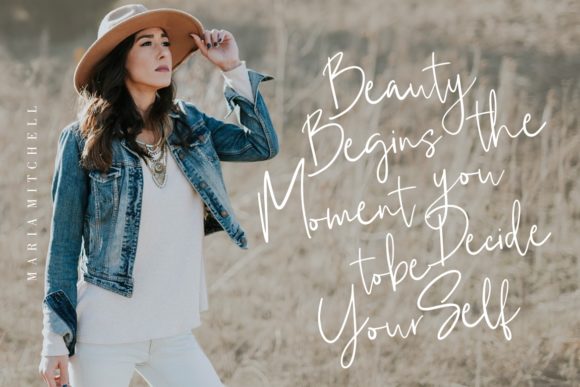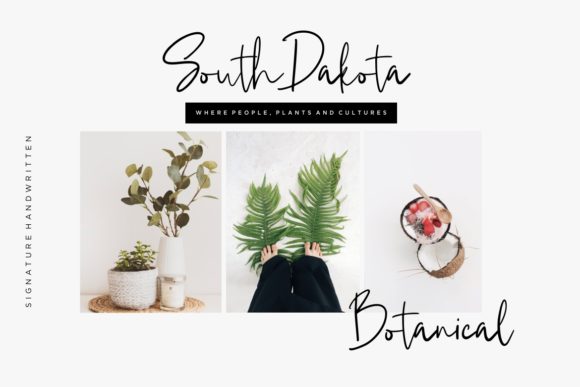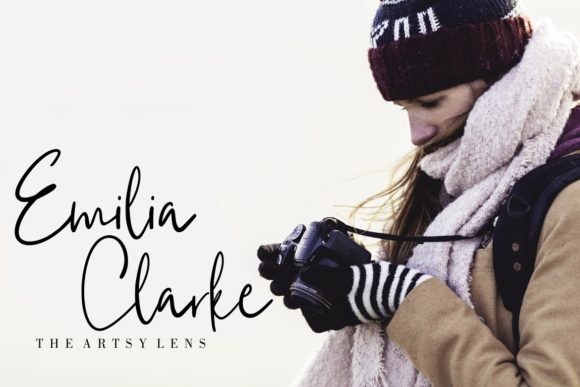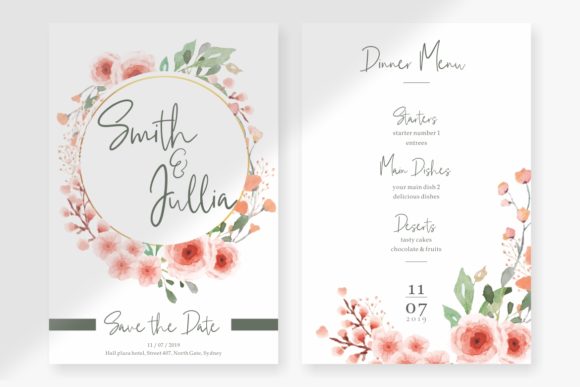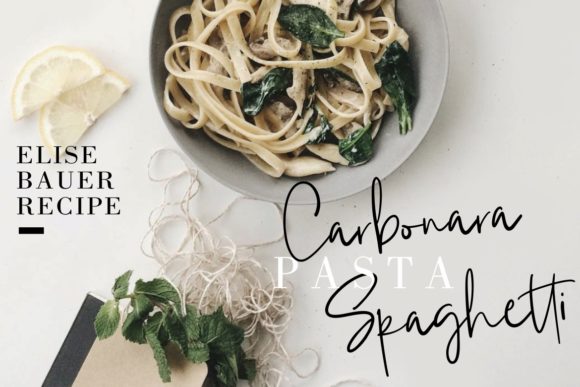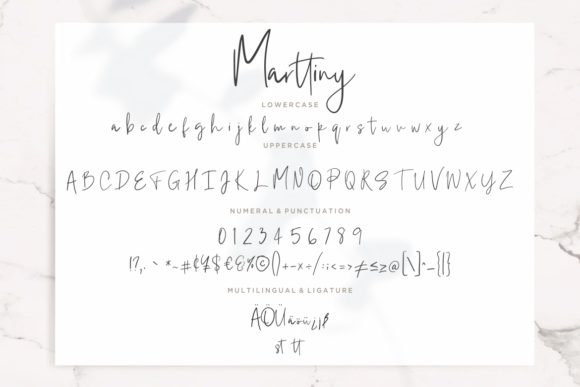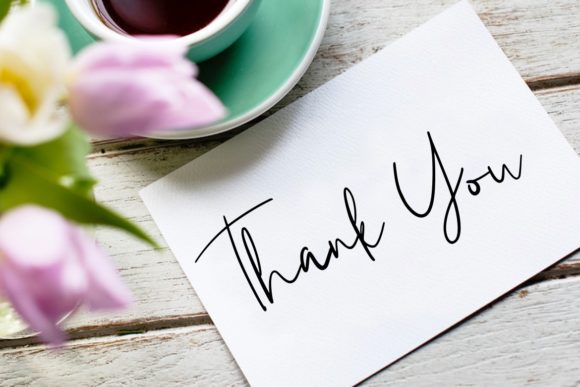
HomeScript FontsMarttiny Font Script Fonts Marttiny Font FacebookXPinterestWhatsApp Marttiny Font Poster 2 Marttiny Font Poster 3 Marttiny Font Poster 4 Marttiny Font Poster 5 Marttiny Font Poster 6 Marttiny Font Poster 7 Marttiny Font Poster 8 About Marttiny Font Marttiny is an equally smooth and charming script with beautiful lettering. Get inspired by its handcrafted style. DOWNLOAD ON CREATIVE FABRICAThis font is sold and delivered by Creative Fabrica. Font Canyon may earn a commission if you buy through this link. People also explored Catcalling Font Baldovino Font Nibbles Marchellia Font Rogue Sans Extended Pro Gapbrooth Font Betty Font Morachinno Font Vendura 302 0 TagsMarttiny Font Previous articleGilliant FontNext articleZiliast Font LEAVE A REPLY Cancel reply Comment: Please enter your comment! Name:* Please enter your name here Email:* You have entered an incorrect email address! Please enter your email address here Website: Save my name, email, and website in this browser for the next time I comment. Personal Use Free Alinda Personal Use Free Read more about this font Beloved Script Personal Use Free Read more about this font Harshita Personal Use Free Read more about this font Boldace Personal Use Free Read more about this font BLOG Free vs Paid Fonts: Why Investing in Premium Fonts Is Worth It Free vs Paid Fonts: Why Premium Fonts Are Worth It in 2025 The debate of free vs paid fonts continues in the design world. While... 5 Fonts That Will Dominate Design Trends in 2026 The 10 Best Handwriting Fonts to Add Personality to Your Designs Top 10 Handwritten Fonts That Elevate Your Designs